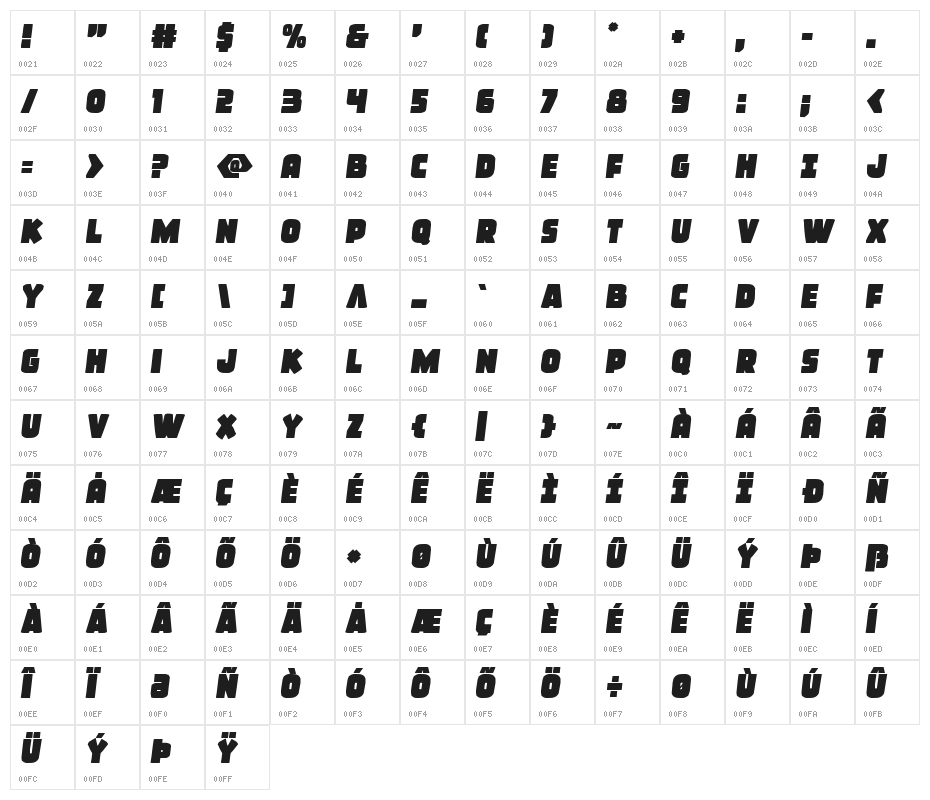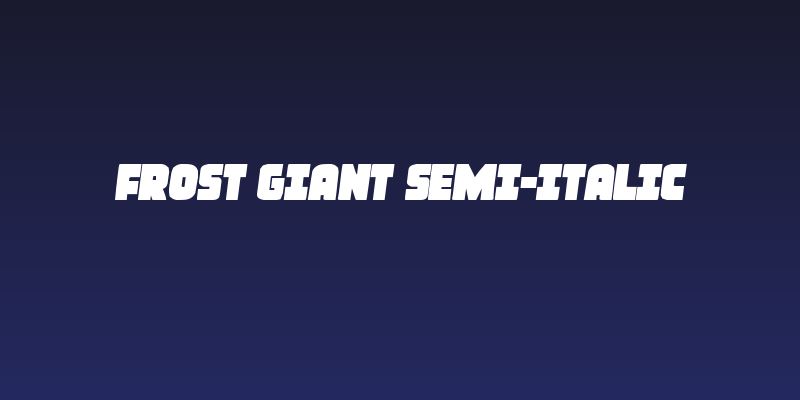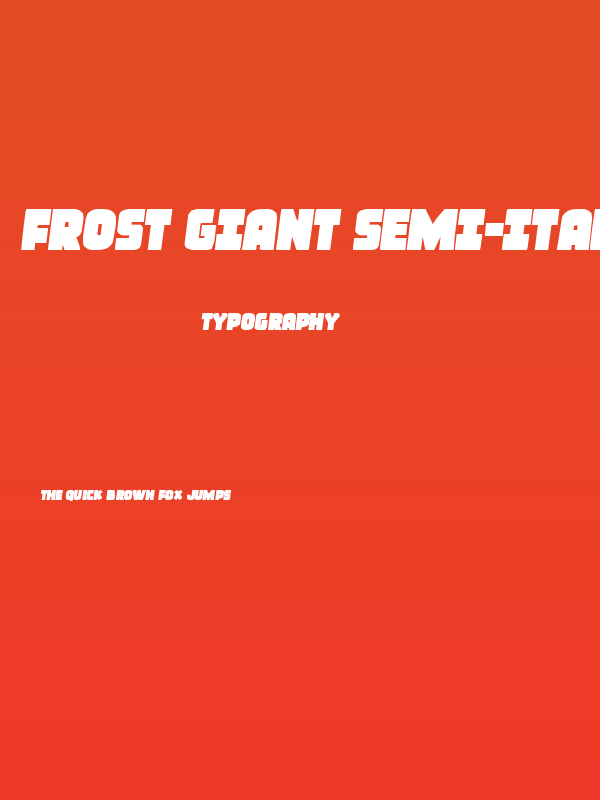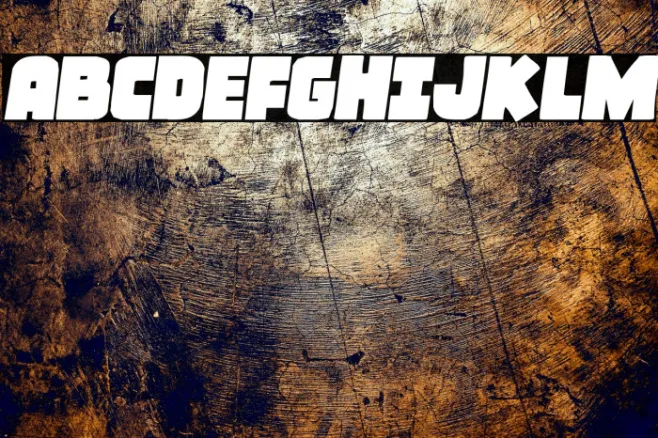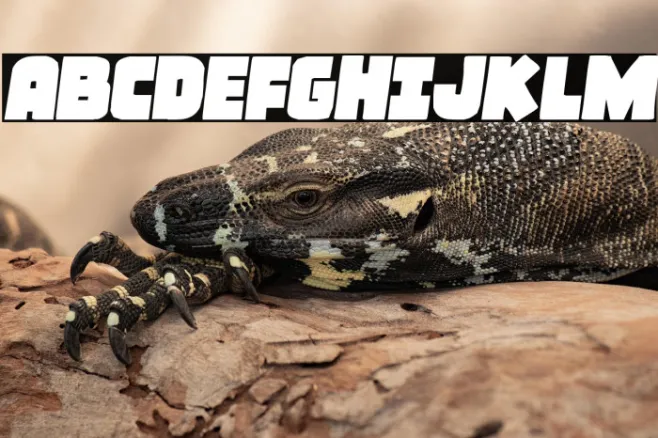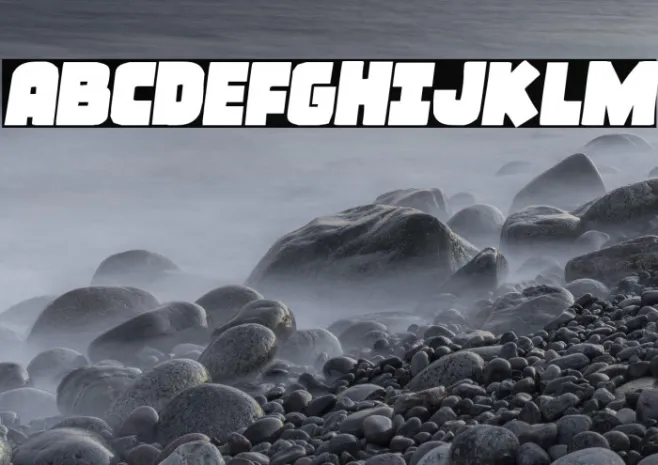
Frost Giant Semi-Italic Font
Frost Giant Semi-Italic Description
This bold, semi-italic typeface features strong, angular lines and a robust presence. The characters are heavily weighted, with a slight forward slant that adds a dynamic feel. The uppercase and lowercase letters maintain a consistent style, with wide, blocky forms that convey strength and impact. The numerals and special characters follow the same design principles, ensuring uniformity across all glyphs. This font's boldness and unique style make it suitable for attention-grabbing designs.
| Proposed Projects | Ideal for sports branding, posters, headlines, and any design requiring a bold, impactful typeface. |